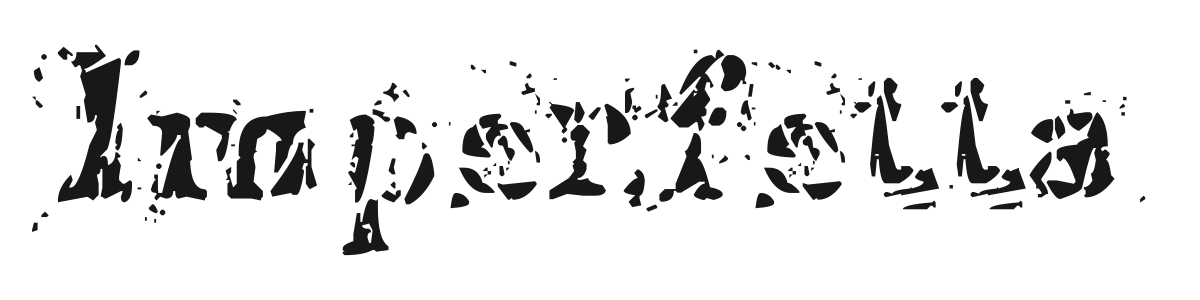
Imperfetta
by Mar�a Eugenia Pettina
Imperfetta is a bold, textured display face by María Eugenia Pettina with letterforms that look genuinely worn down, as if they've been printed and reprinted until the edges started breaking apart. The rough, grungy surface gives every character a physical quality that's hard to fake with filters, making it a strong pick for posters, album art, and headlines where you want type that feels weathered and real rather than digitally pristine.